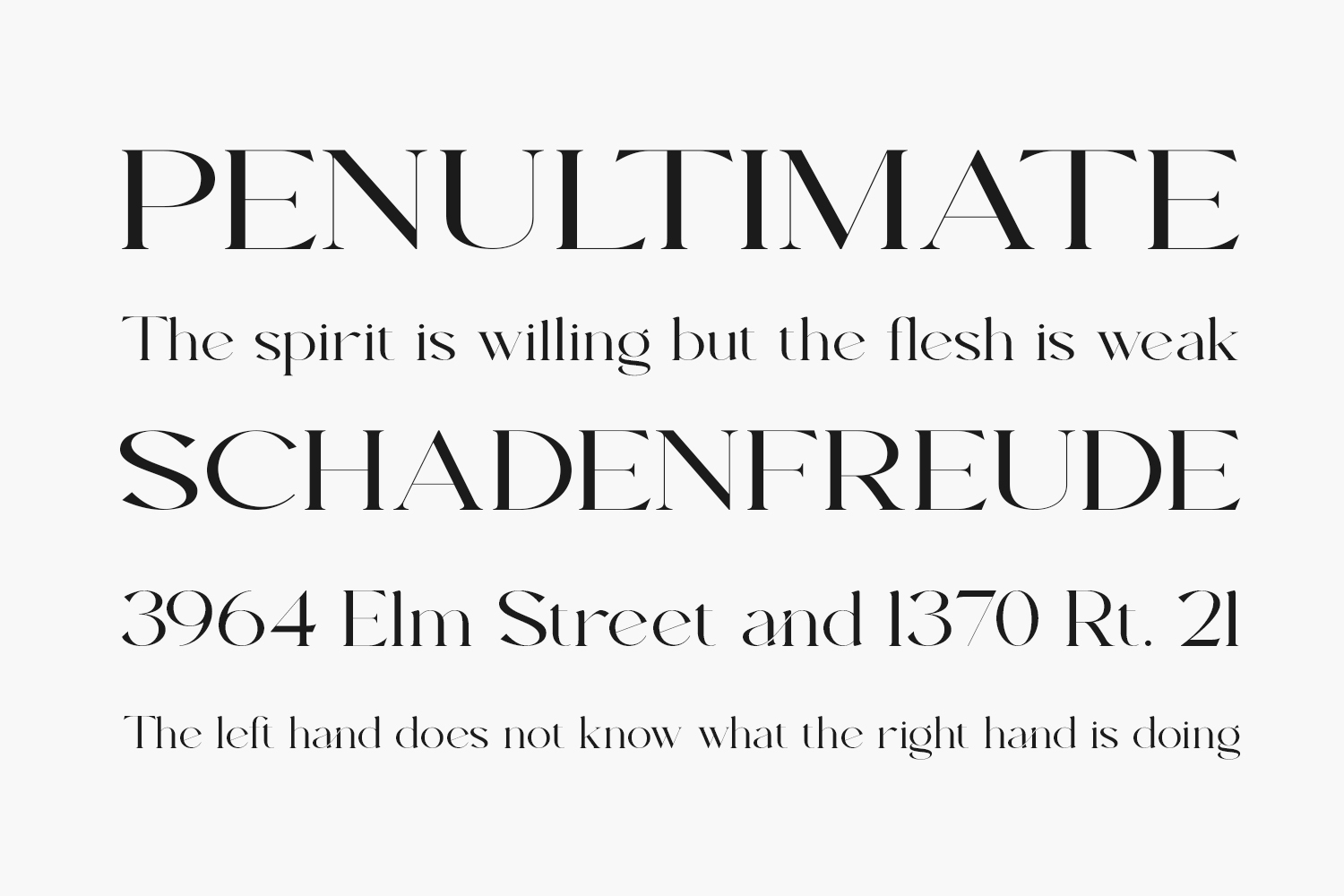
Sacred Valley Free Font is a delicate and thin lettered serif font. It will elevate a wide range of crafting ideas, from cards to branding, labels and much more. Sacred Valley Free Font was designed by Pen Culture and is free for personal use only. Please purchase the full version for commercial use.